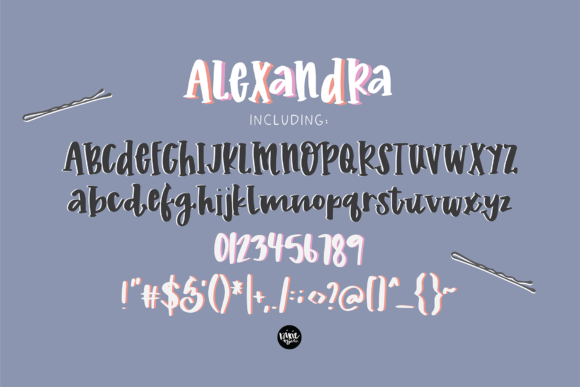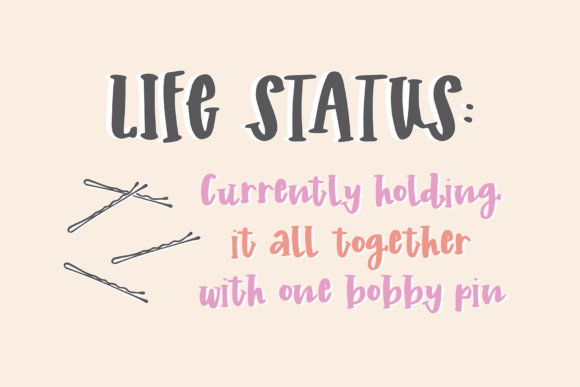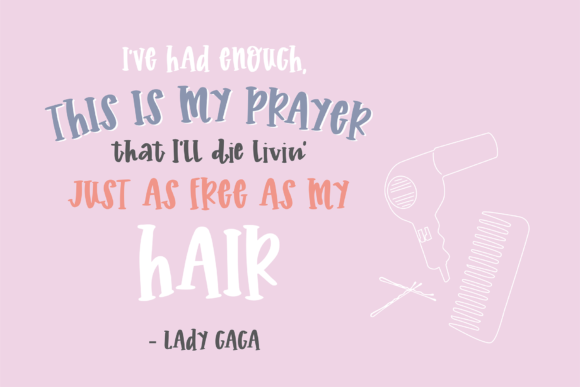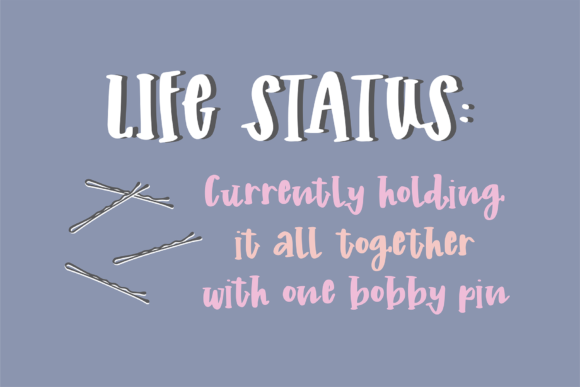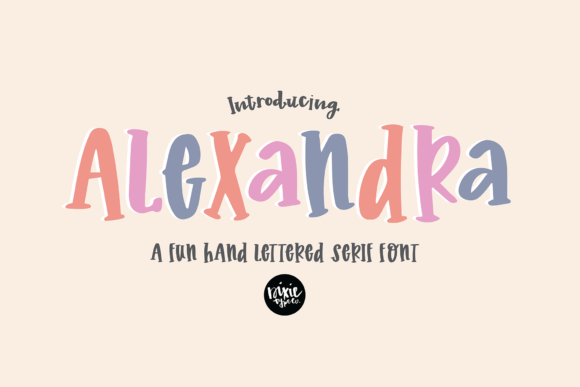
The Designer’s Delight: Unleashing the Playful Charm of Alexandra Font
I’ll never forget the time I was working on a project for a children’s party invitation. I had the design concept nailed, but something was missing – the perfect font. I scrolled through my font library, but nothing seemed quite right. That’s when I stumbled upon Alexandra Font, a unique handwritten font with a playful theme that instantly brightened up my design. In this article, I’ll share my experience with Alexandra Font, its features, and how to make the most of it in your design projects.
An Honest Review of Alexandra Font
- ✨ Unique and playful handwritten style that adds a personal touch to any design
- 🎉 Extensive character set, including glyphs and stylistic alternates
- 💻 Works beautifully across various design platforms
While Alexandra Font is an excellent choice for many design projects, there are a few things to keep in mind:
- ⚠️ May not be the best fit for formal or corporate designs, as its playful nature might not align with the brand’s tone
- 🤔 Some users might find the font’s quirks and irregularities challenging to work with, especially if they’re used to more traditional fonts
A Practical Guide to Using Alexandra Font
- Experiment with OpenType features, such as glyphs and stylistic alternates, to add visual interest to your design
- Take advantage of OpenType features, such as ligatures and stylistic sets, to enhance your design
The Story Behind Alexandra Font
Alexandra Font was designed with the intention of creating a unique and playful handwritten font that would add a personal touch to design projects. The designer aimed to craft a font that would be both legible and visually appealing, with a range of glyphs and stylistic alternates to enhance its versatility.
Q: What type of projects is Alexandra Font best suited for?
A: Alexandra Font is ideal for creative projects, such as party invitations, social media graphics, and branding materials, where a playful and personal touch is desired.
Q: Is Alexandra Font suitable for body text?
A: While Alexandra Font is legible, it’s better suited for headlines and titles due to its playful and decorative nature. For body text, a more traditional font might be more suitable.